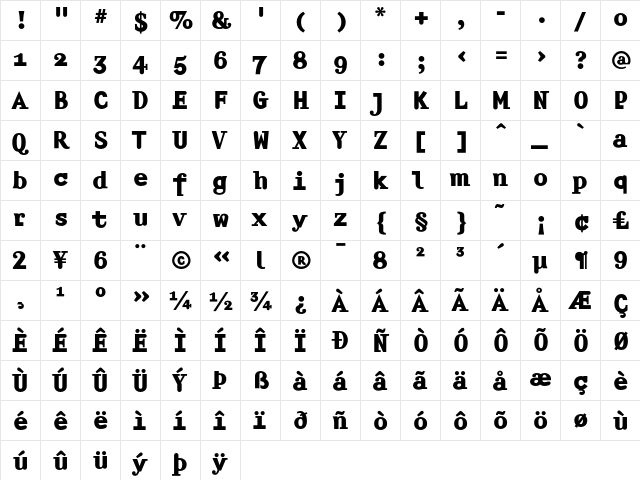
Amplifier Bold Font Preview
Amplifier Bold
Design Context for Amplifier Typeface
Amplifier is a composed and adaptable typeface that performs quietly and consistently across a wide range of design contexts. The heavy weight commands attention and anchors typographic hierarchies.